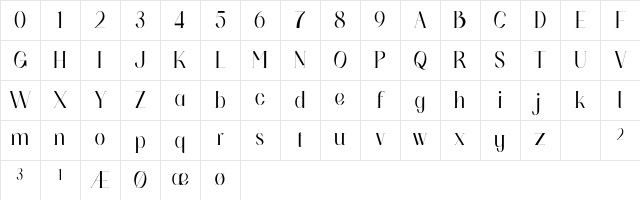
Sumera Dita Personal Use Regular
Foundry: Ibra Creative Studio
Designer: Ibra Fonts
Design Context for Sumera Dita Personal Use
Sumera Dita Personal Use is a composed and adaptable typeface that performs quietly and consistently across a wide range of design contexts.